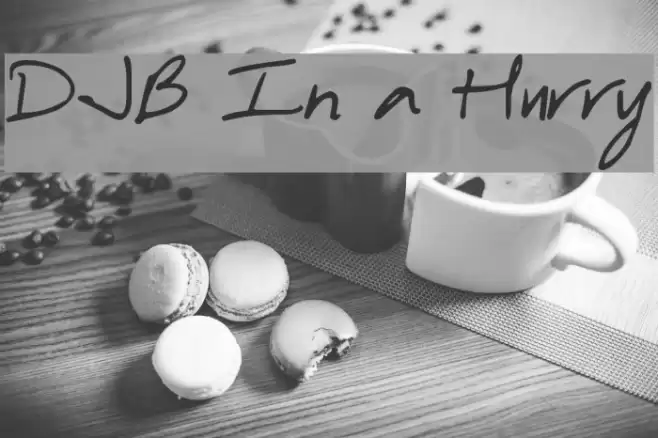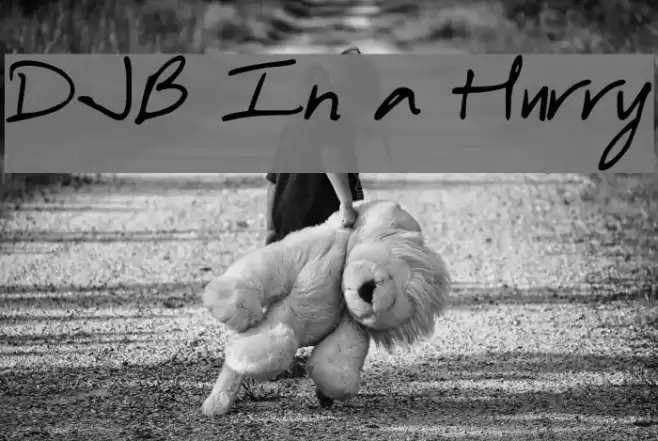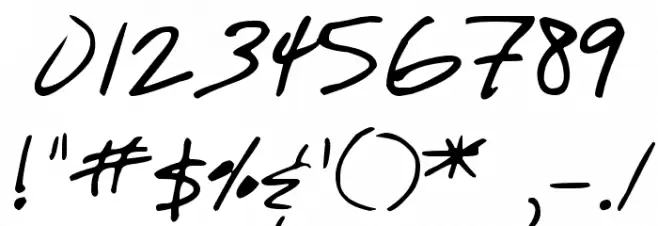
DJB In a Hurry Font
DJB In a Hurry Description
This font features a casual, handwritten style with a playful and energetic feel. The letters are slightly slanted, giving it a dynamic and informal appearance. The strokes vary in thickness, adding a touch of spontaneity and character to the text. The uppercase and lowercase letters are distinct yet maintain a cohesive look, making it versatile for various design needs. The numerals and special characters are crafted with the same lively style, ensuring consistency throughout. This font is perfect for projects that require a personal, approachable touch.
A casual, handwritten font with a playful and energetic style from Handwritten fonts.
- Proposed Projects: Ideal for greeting cards, personal blogs, casual branding, and social media graphics.
- Overall Style: Casual
- Use Case: Headlines, Informal text, Personal projects